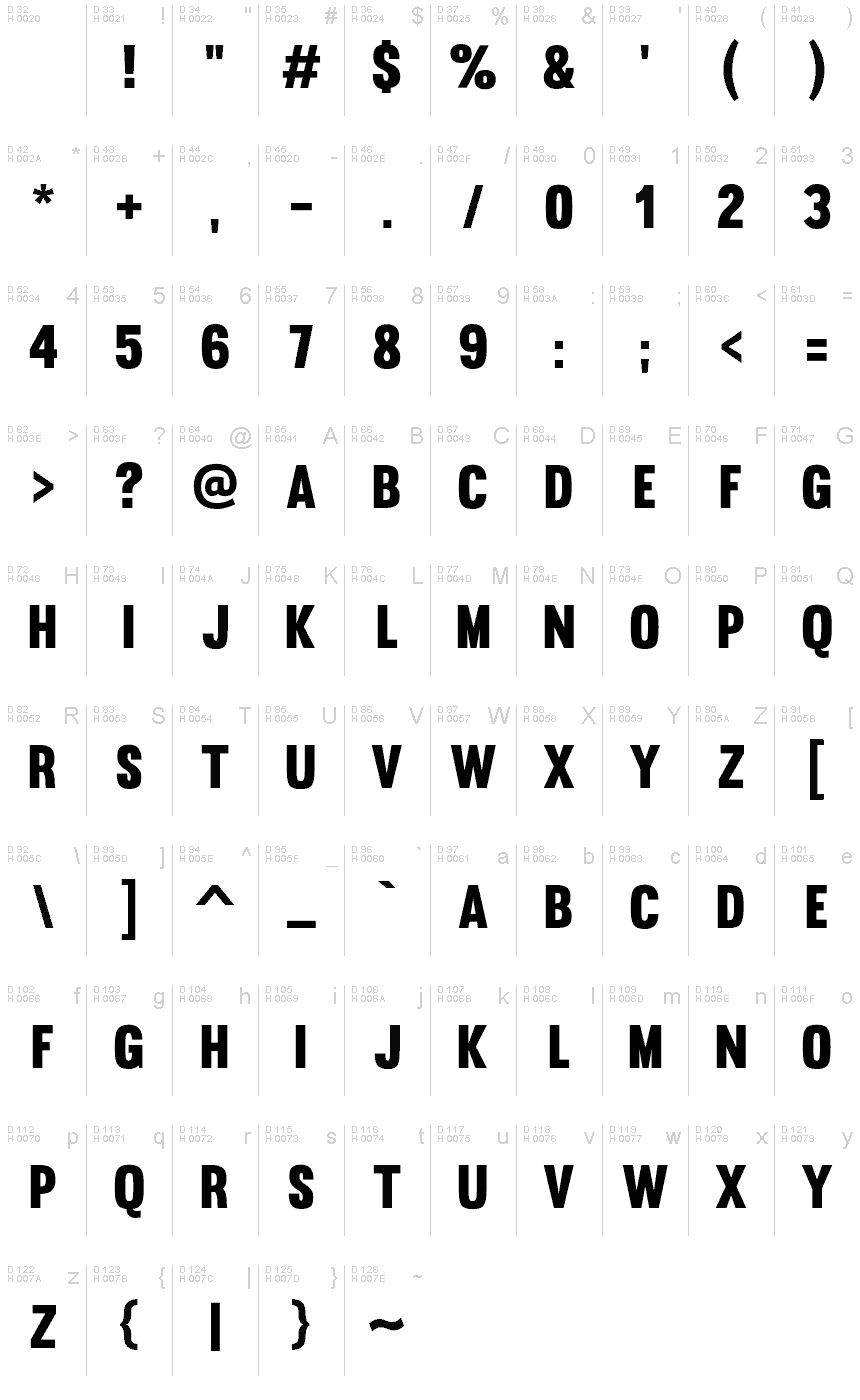
Muro-Regular
Muro is a bold, condensed sans-serif font that exudes a striking and distinctive presence. Crafted by the talented team at La Tipomàtica, this font boasts a powerful aesthetic that commands attention.
Its strong, angular forms and compact design lend it an air of authority and confidence, making it an excellent choice for a wide range of applications, from eye-catching headlines and impactful branding to robust signage and edgy editorial layouts.
Muro's versatility and visual impact make it a compelling option for designers seeking to create bold, memorable designs that leave a lasting impression.
Its strong, angular forms and compact design lend it an air of authority and confidence, making it an excellent choice for a wide range of applications, from eye-catching headlines and impactful branding to robust signage and edgy editorial layouts.
Muro's versatility and visual impact make it a compelling option for designers seeking to create bold, memorable designs that leave a lasting impression.
Joan Alegret